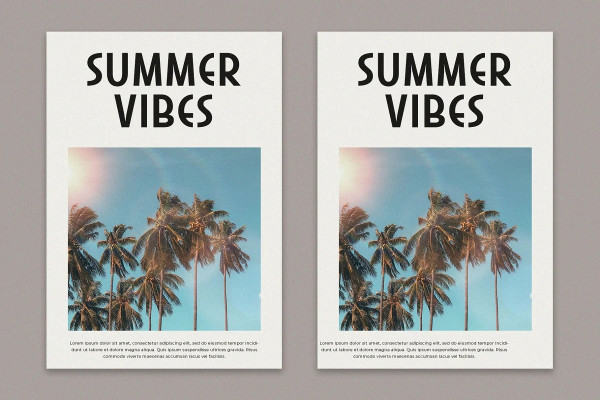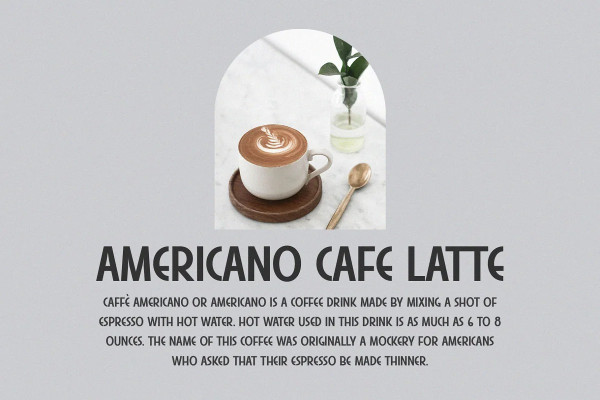
Jumping Font
Jumping Font – Modern Display Sans Serif, is a modern and simple font, best used as a display for headings, logos, branding, magazines, product packaging and invitations.